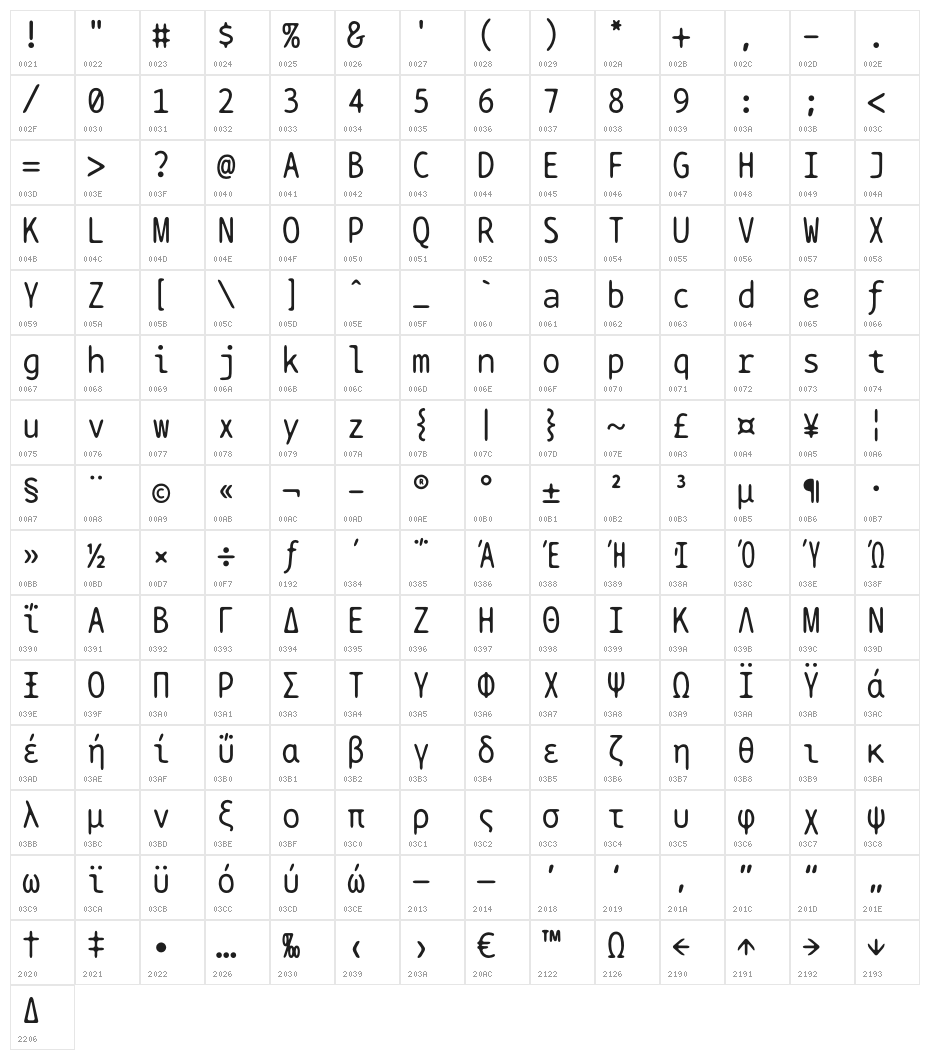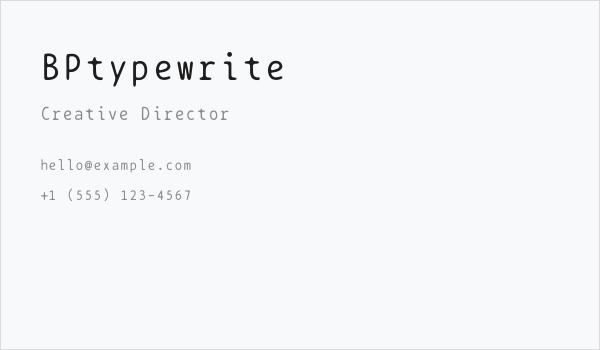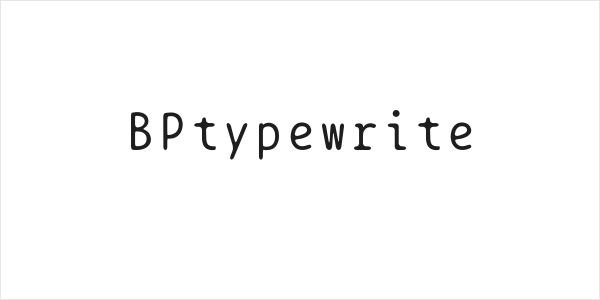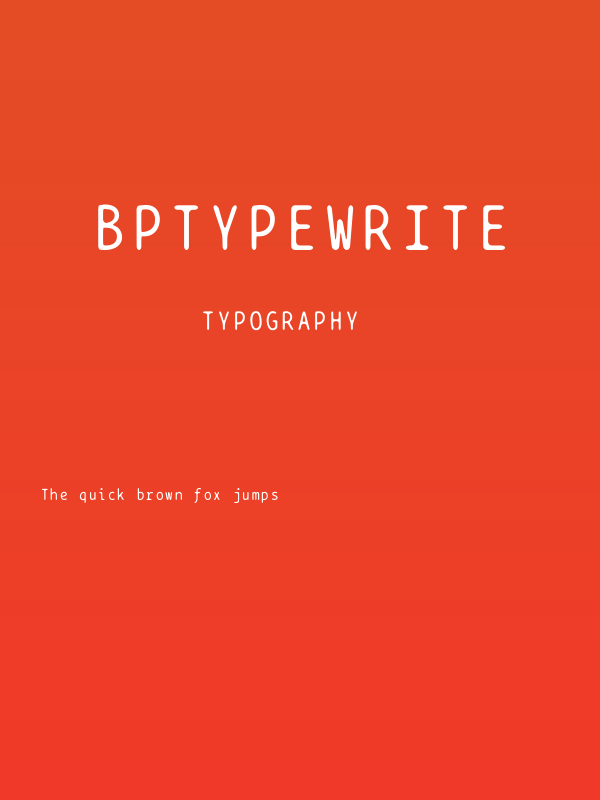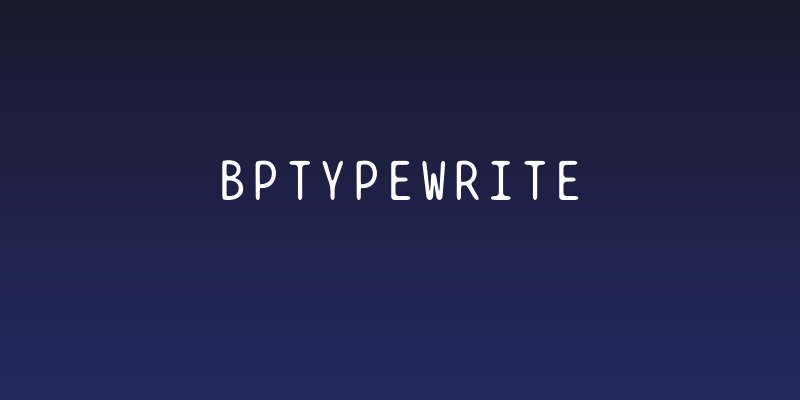
BPtypewrite Font
BPtypewrite Description
This typeface features a monospaced design reminiscent of classic typewriter fonts. Each character is evenly spaced, providing a uniform appearance that is both functional and aesthetically pleasing. The letters have a rounded, slightly playful quality, with consistent stroke widths that enhance readability. The numerals and special characters maintain the same monospaced style, ensuring a cohesive look across all text. This font is versatile, suitable for both digital and print media, and evokes a sense of nostalgia while remaining modern and clean.
| Use Case | Body text, Coding, Retro designs |
| Proposed Projects | Ideal for coding environments, retro-themed designs, typewriter-style documents, and any project requiring a vintage yet modern aesthetic. |